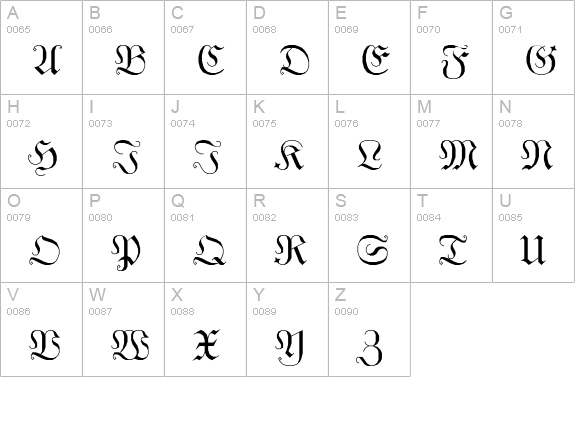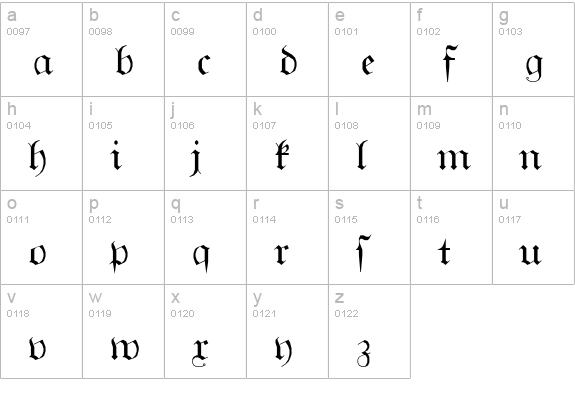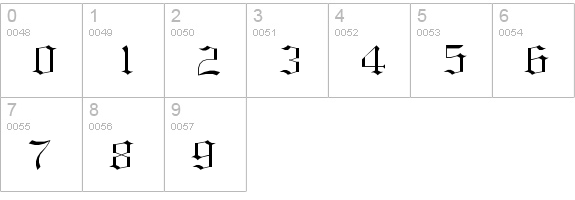
GothicG font is a stunning display typeface that exudes a sense of mystery and elegance. Its intricate details and sharp edges give it a gothic charm that is perfect for adding a touch of drama to your designs. The font features bold, dramatic letterforms that are ideal for headlines, logos, and other graphic projects that require a bold statement. Best of all, GothicG font is completely free to download at FontsMarket.com. This means you can easily add this striking typeface to your font collection without any cost. Whether you're working on a project that calls for a touch of darkness or simply want to experiment with a new typeface, GothicG font is a fantastic choice that won't break the bank. Download GothicG font today and let your creativity shine with this captivating typeface.